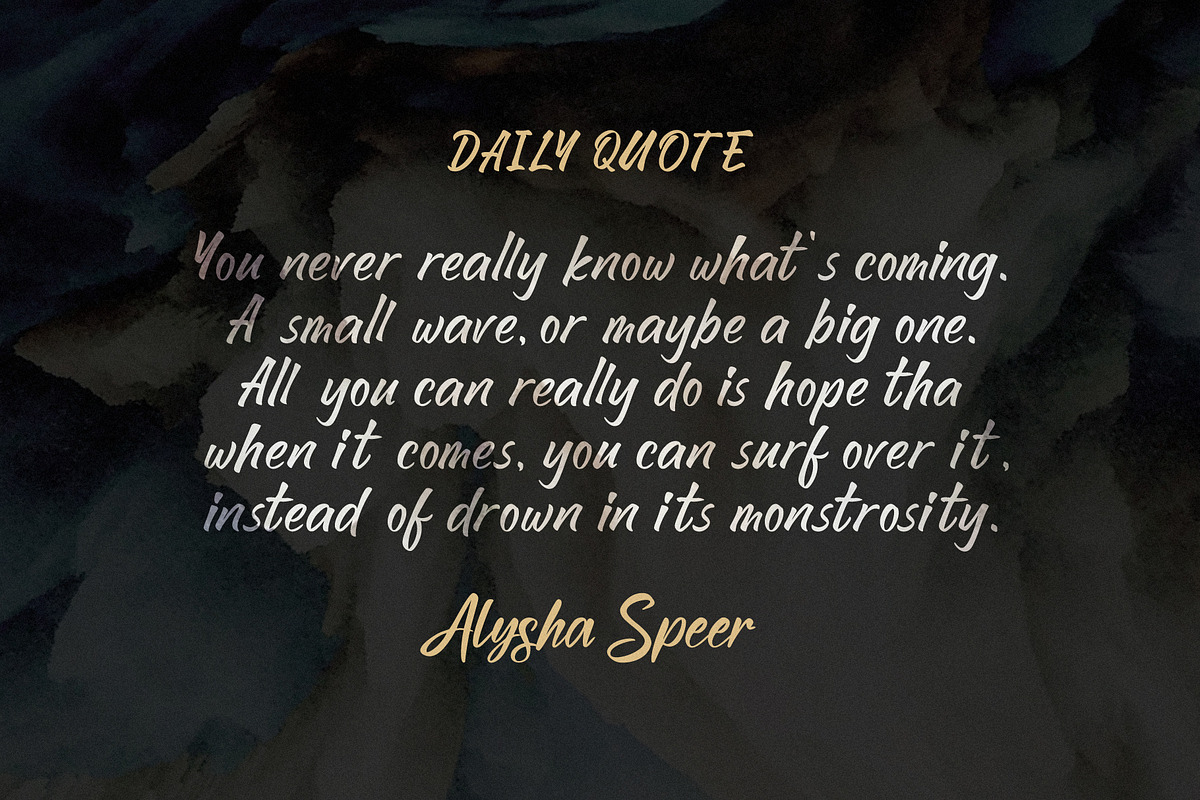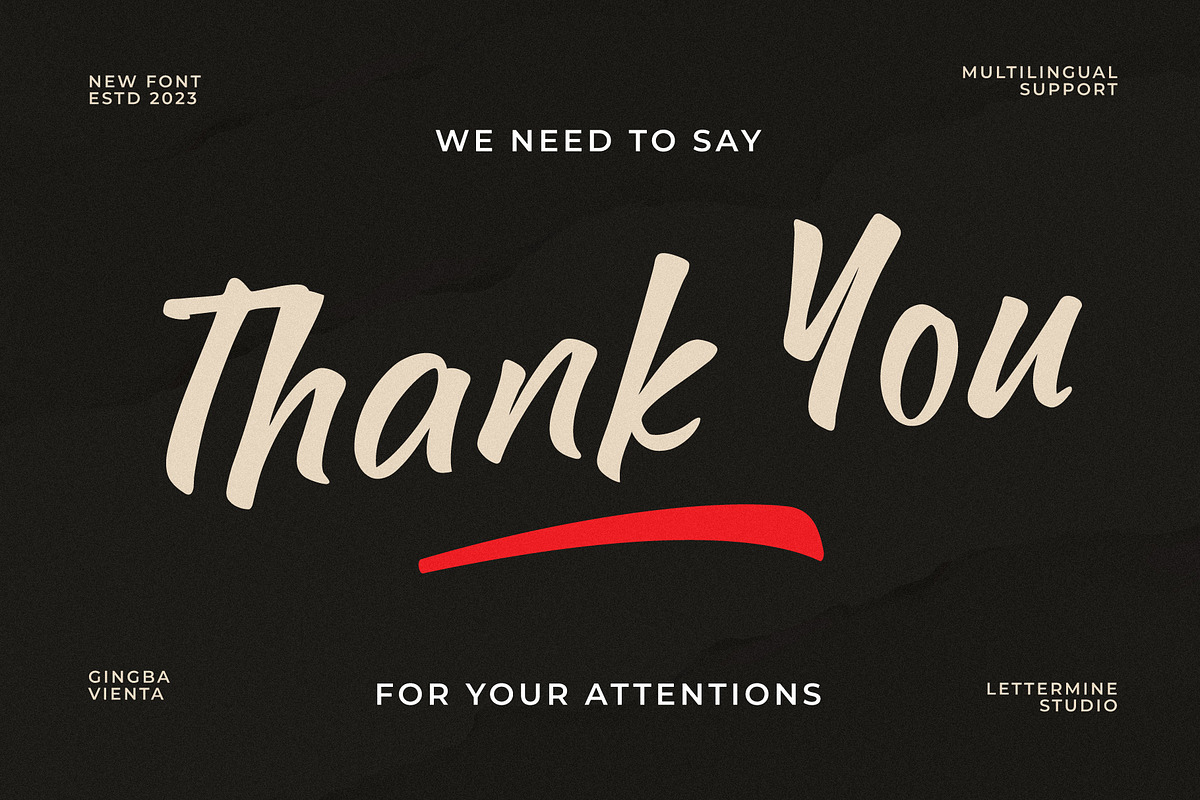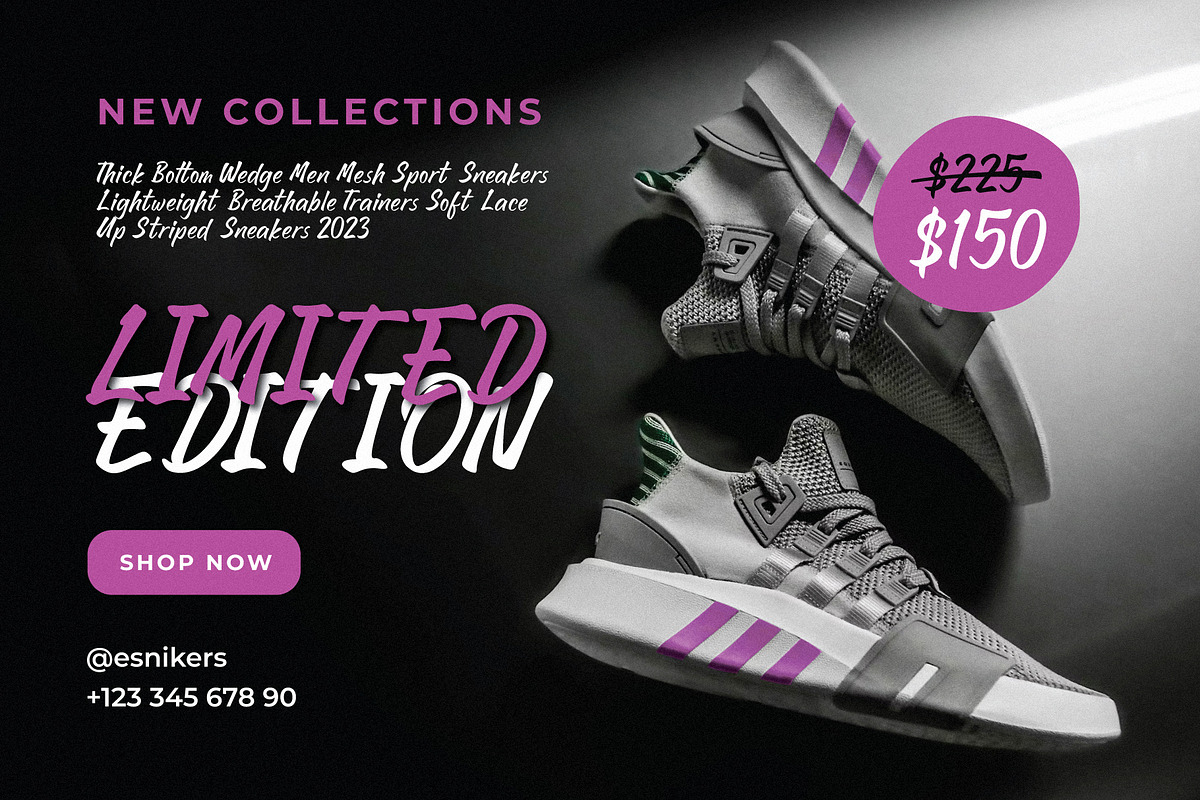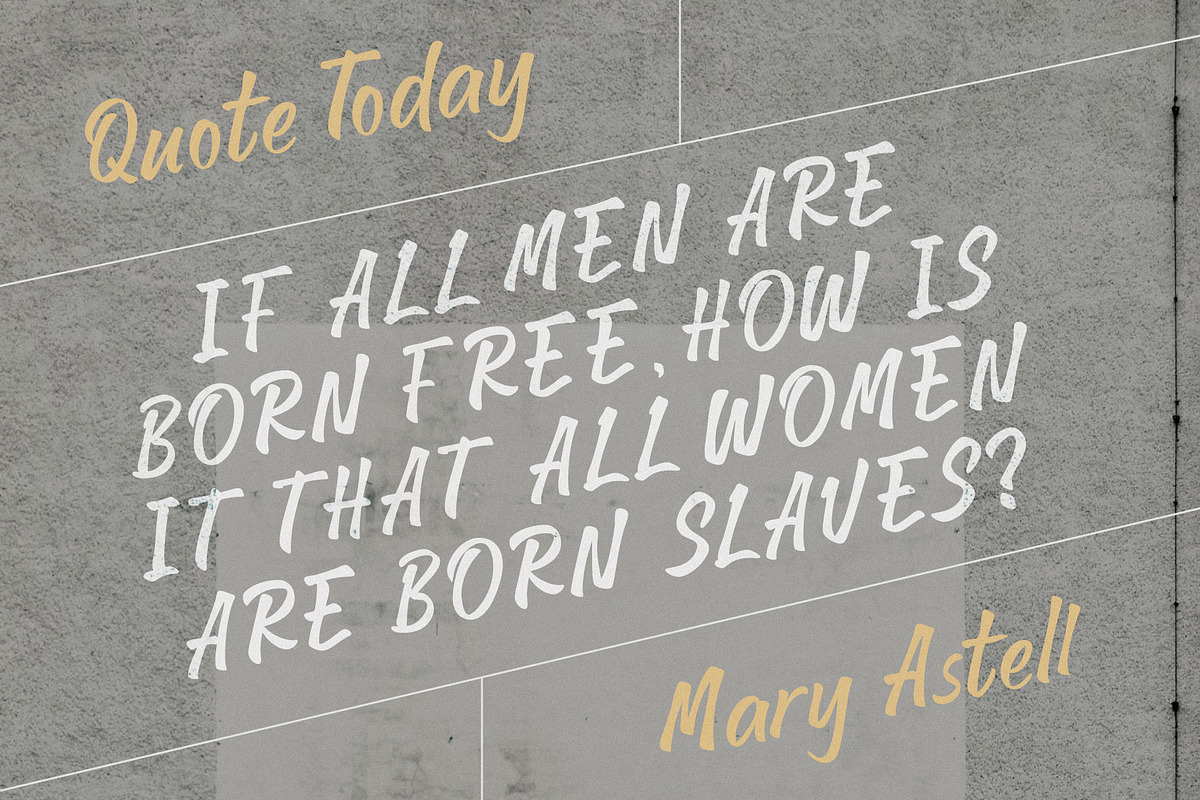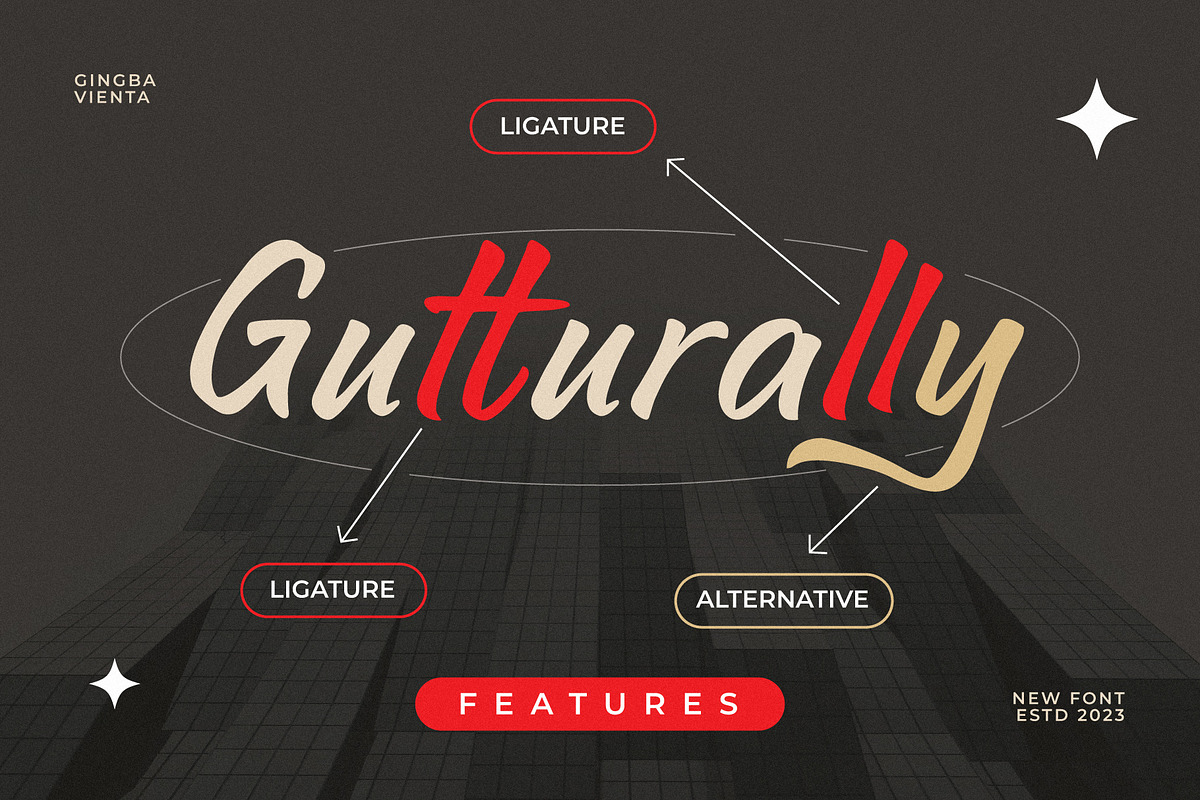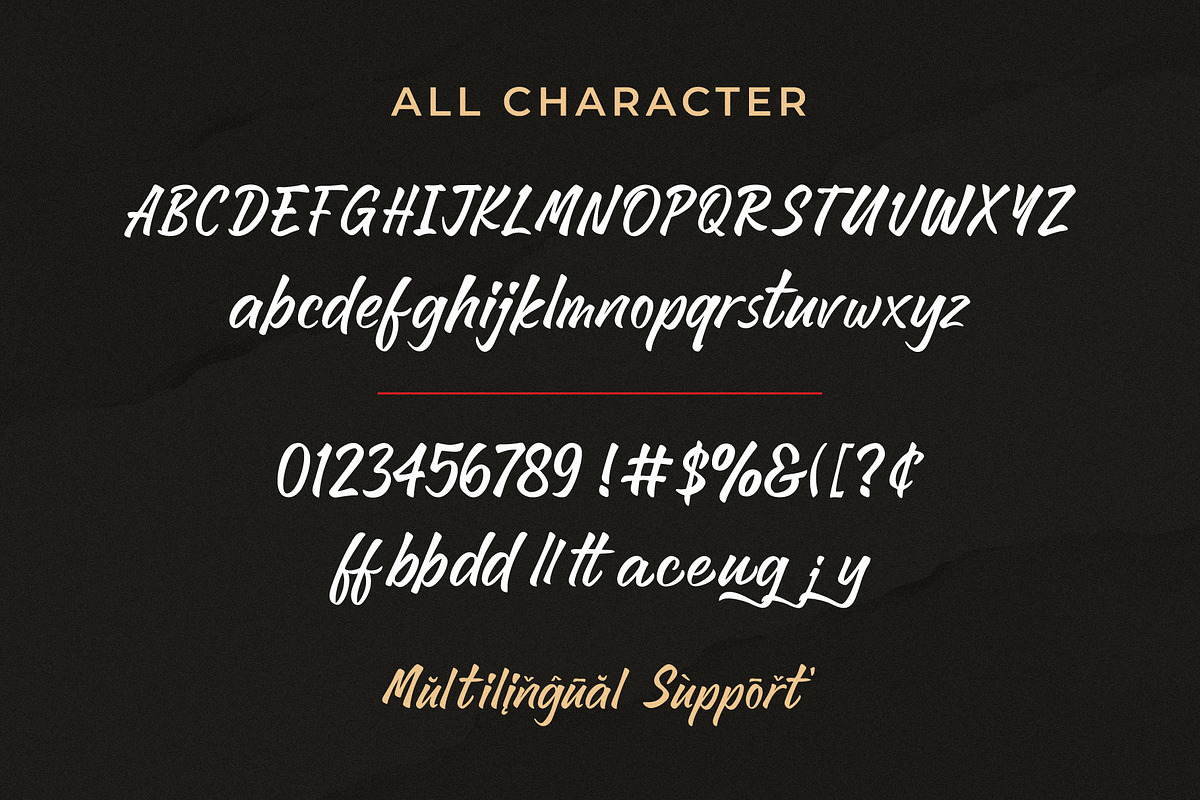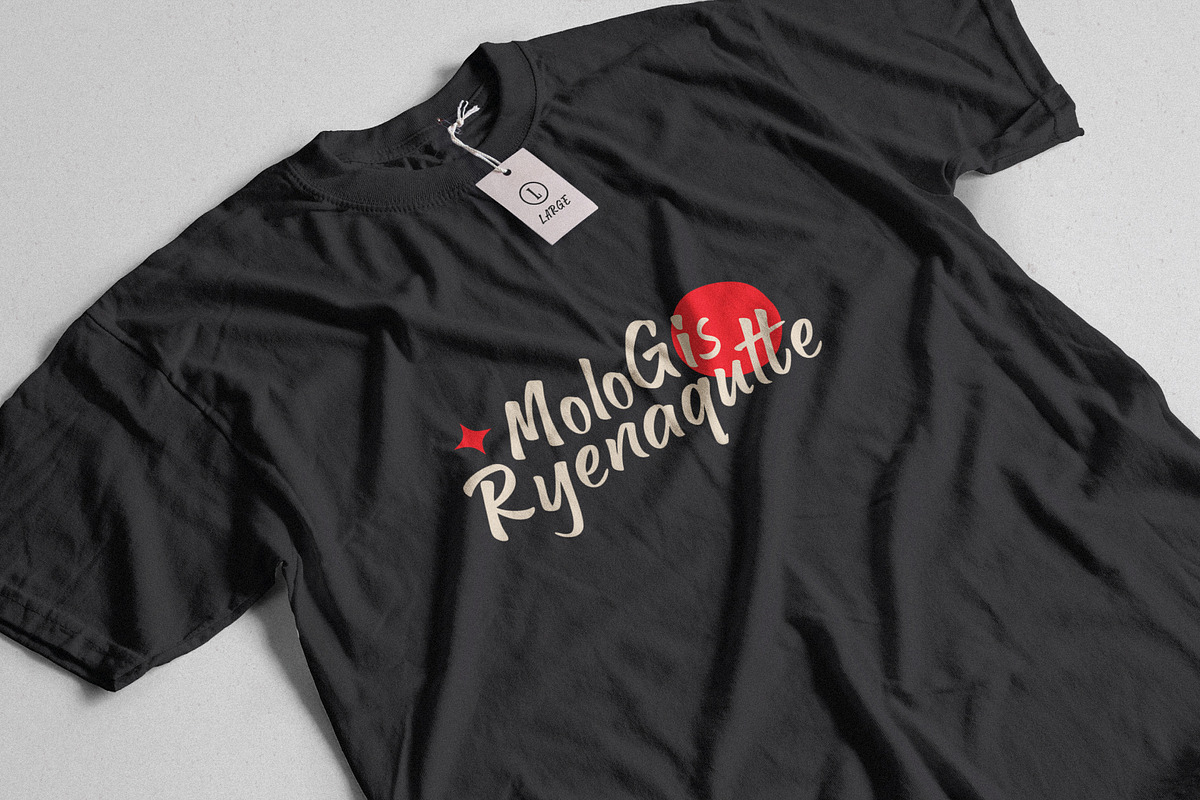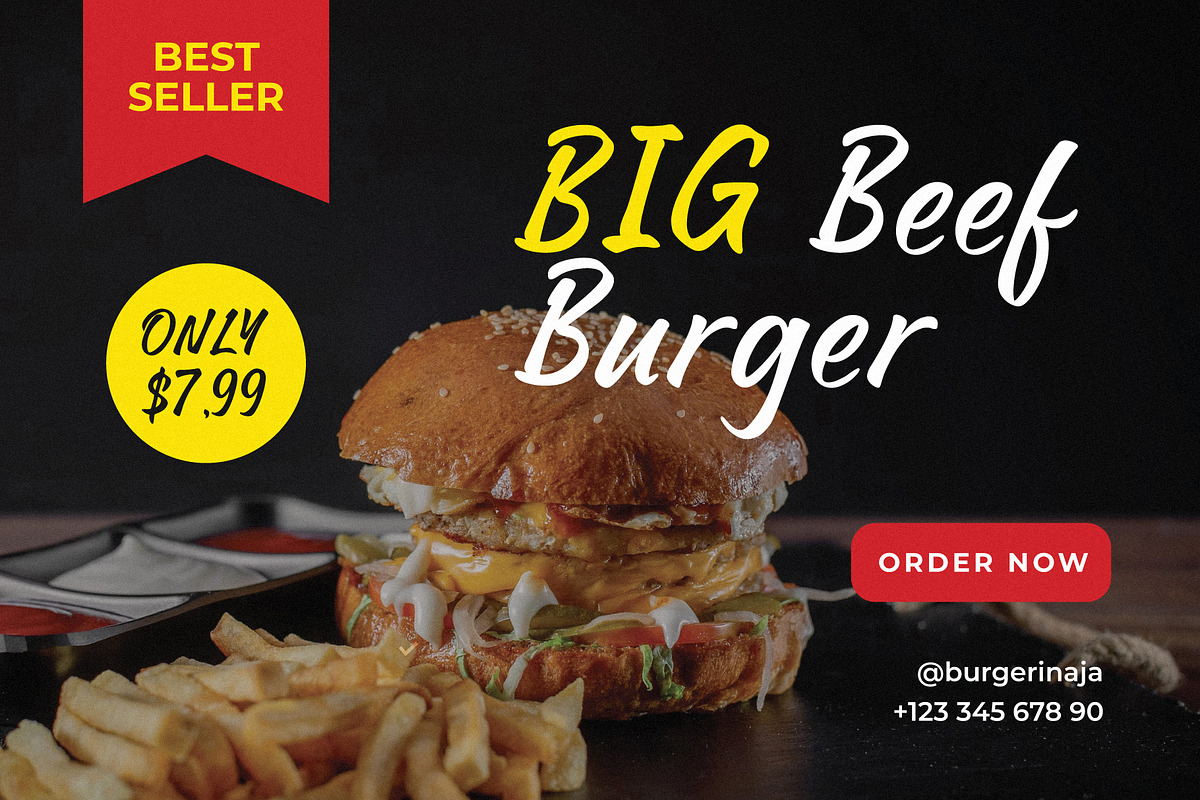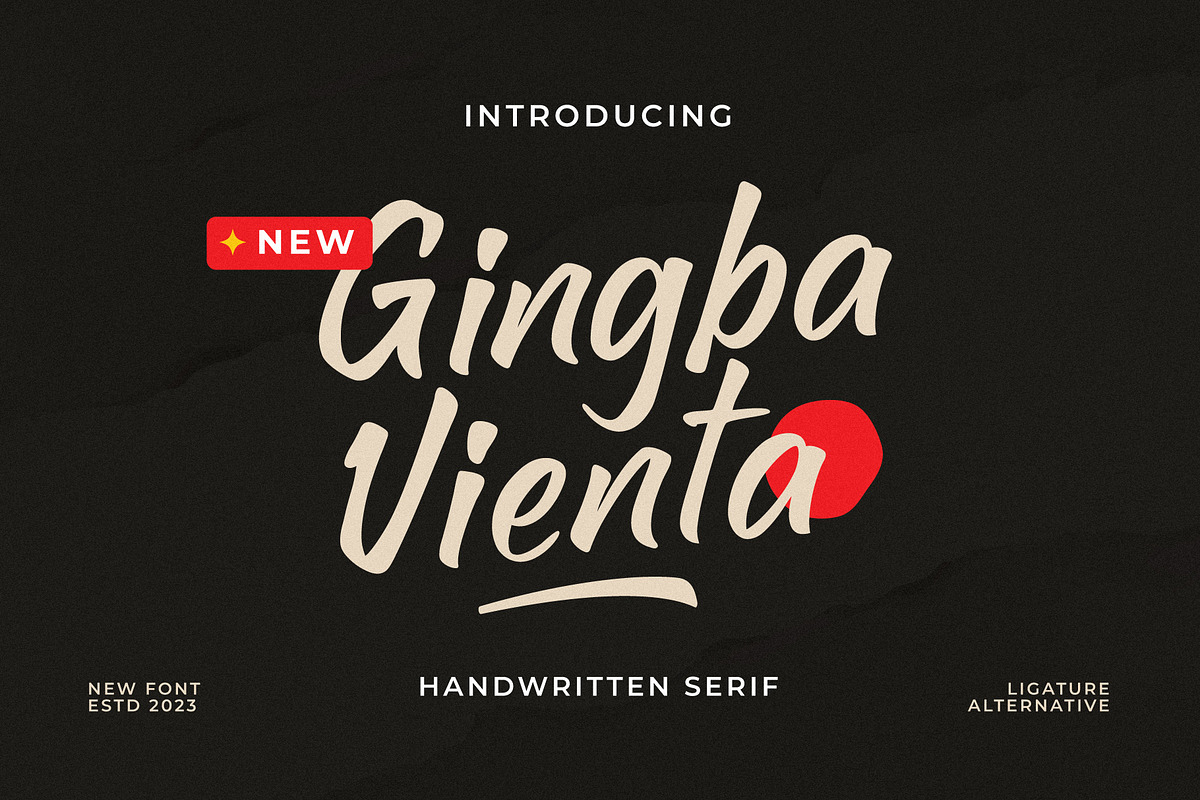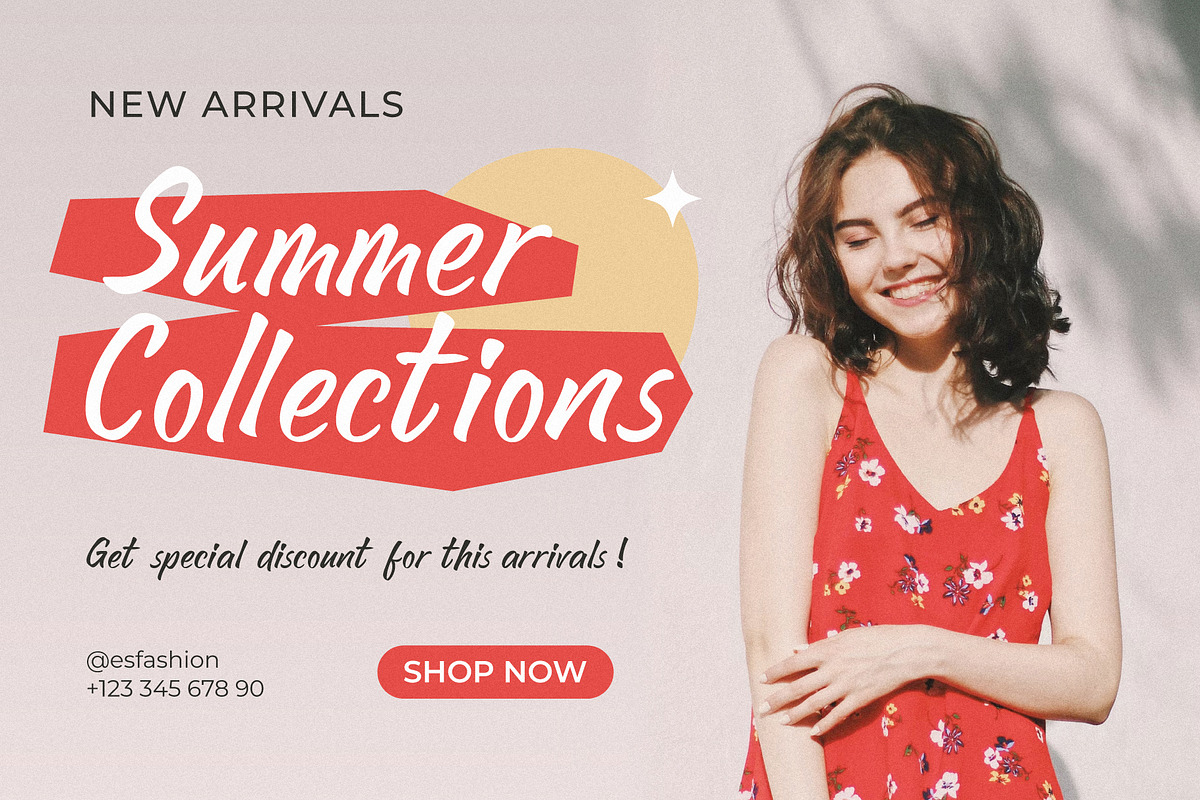
Gingba Vienta - Handwritten Serif
A captivating and versatile Handwritten font designed to add a touch of elegance and modernity to any project. Whether you're designing for the fashion industry, food industry, or various celebratory occasions like weddings, birthdays, or engagements, this font is your perfect companion. With its stylish and contemporary Handwritten brush font style, Gingba Vienta - Handwritten Serif effortlessly captures attention and elevates your designs to new heights.
- Alternate Characters: Gingba Vienta - Handwritten Serif comes with a variety of alternate characters that allow you to create endless variations and combinations. Easily add a creative touch to your designs!
- Ligatures: Presenting beautiful ligatures, Gingba Vienta - Handwritten Serif provides the possibility to combine characters and create a harmonious and flowing appearance.
- Multilingual Support: The multilingual support enables you to reach a global audience with ease. Gingba Vienta - Handwritten Serif includes the necessary characters for major languages worldwide.
- Uppercase and Lowercase: With carefully crafted uppercase and lowercase letterforms, Gingba Vienta - Handwritten Serif offers optimal flexibility in your designs.
- Symbols and Numerals: In addition to letter characters, Gingba Vienta - Handwritten Serif also provides elegant symbols and numerals, offering convenience in creating cohesive and comprehensive designs.